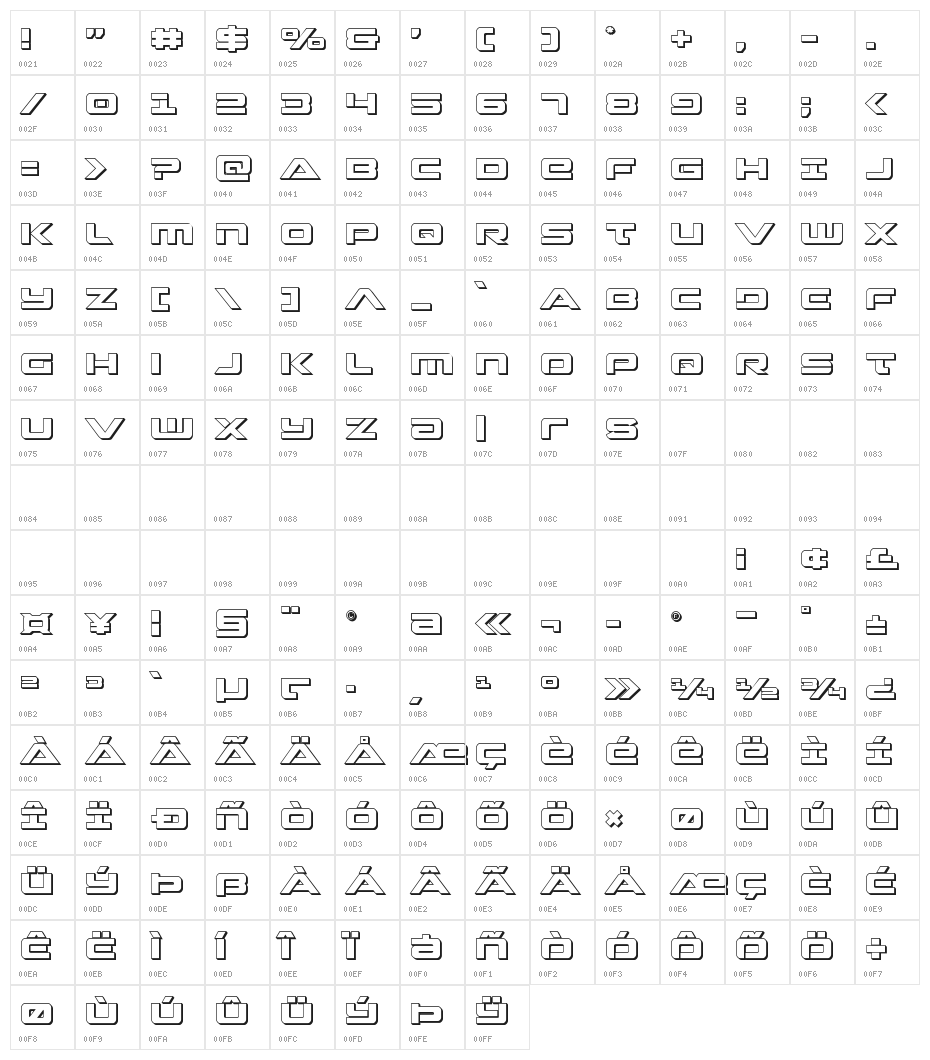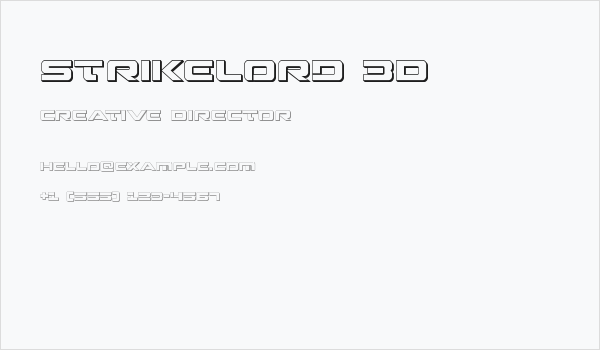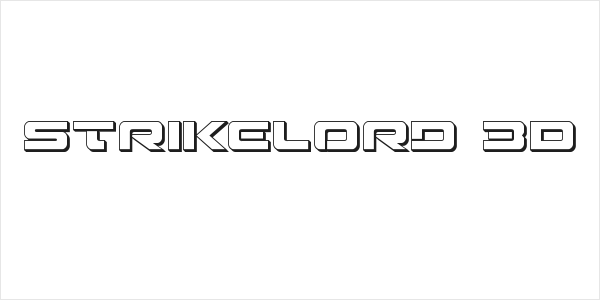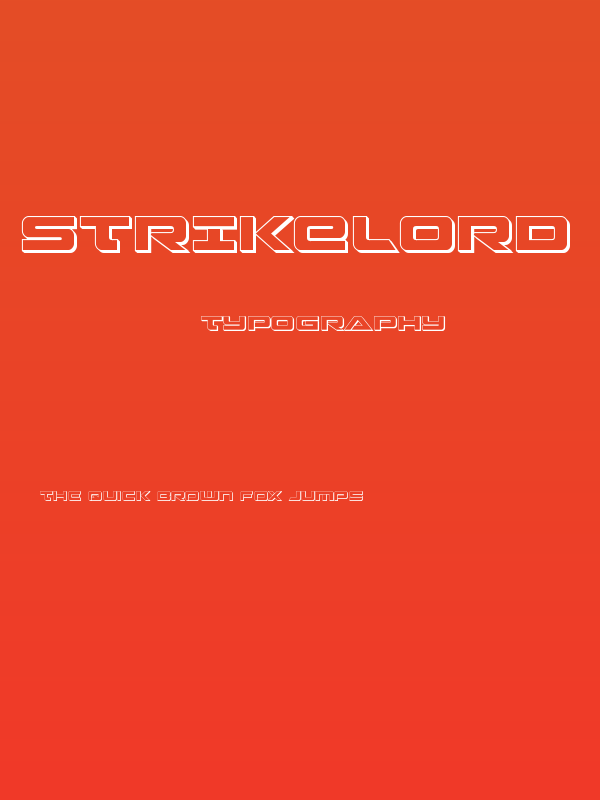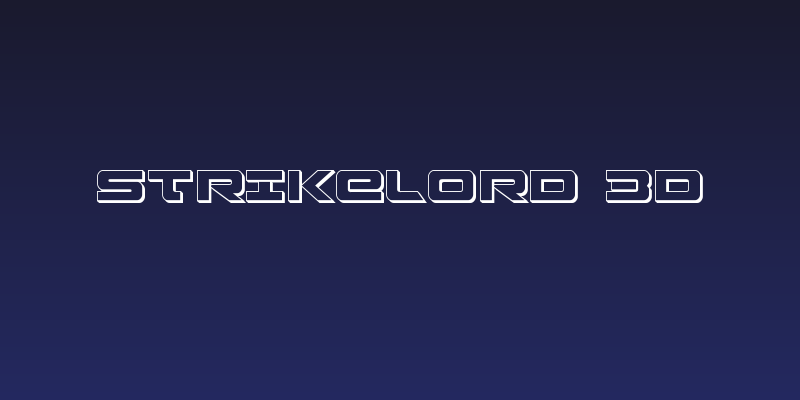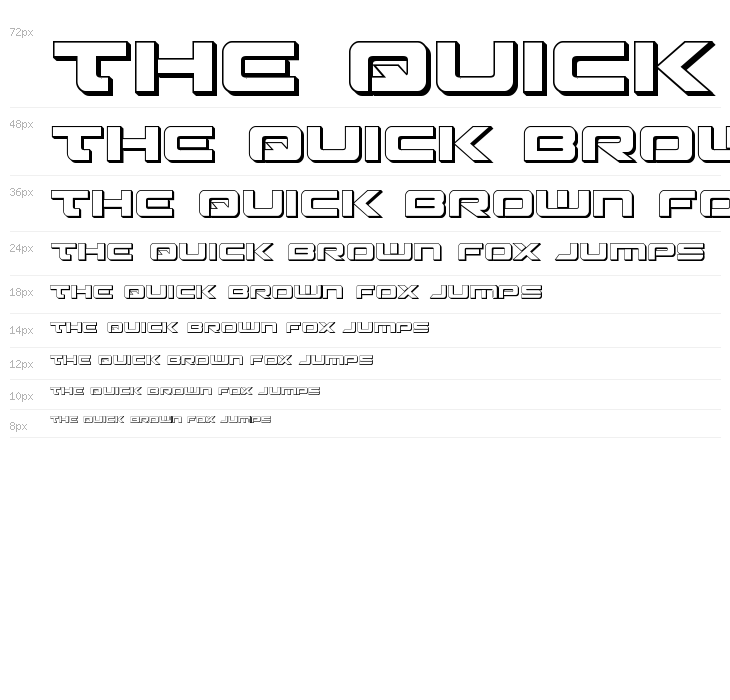
Strikelord 3D Font
Strikelord 3D Description
This font features a bold, geometric design with a 3D effect, characterized by its sharp angles and clean lines. The uppercase and lowercase letters maintain a consistent style, with a futuristic and industrial feel. The numerals and special characters follow the same design principles, ensuring uniformity across all glyphs. The font's structure is robust, making it suitable for impactful visual statements.